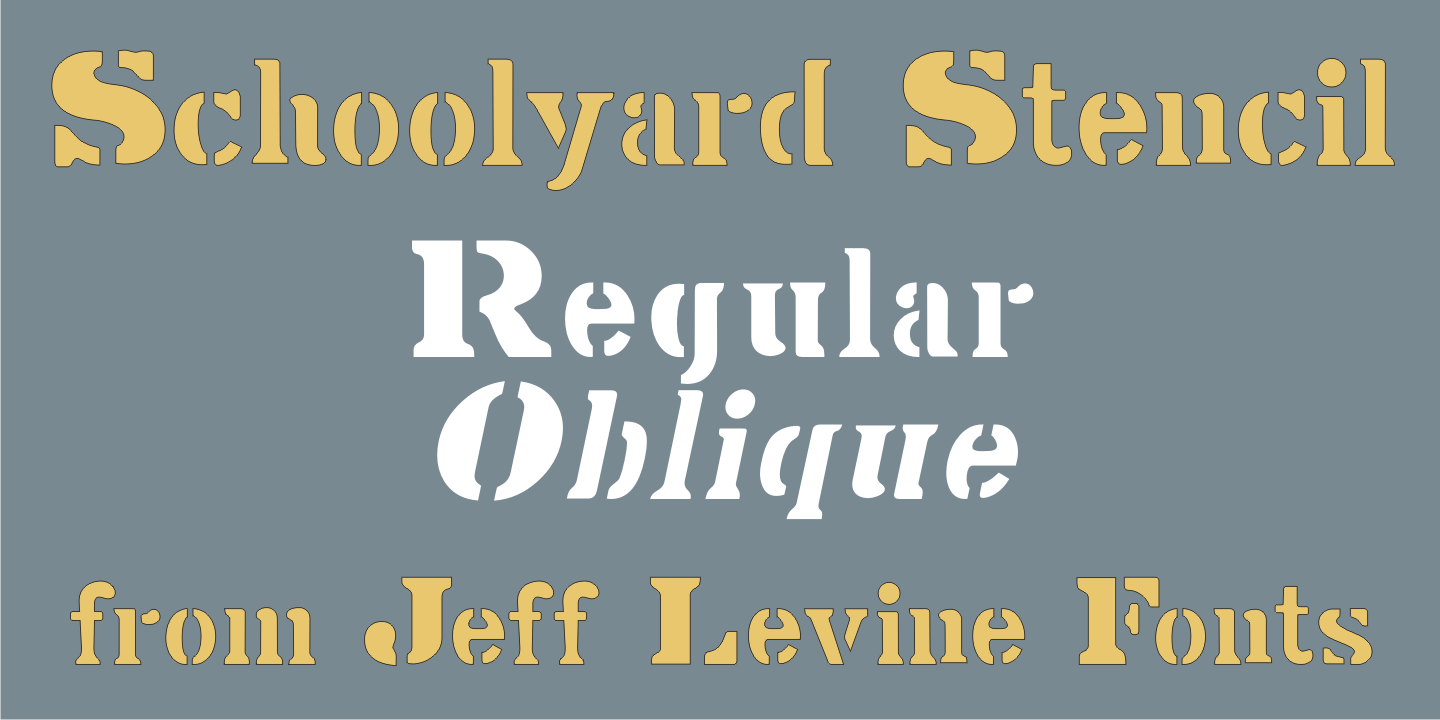
Schoolyard Stencil
A vintage lettering stencil manufactured by the E-Z Letter Stencil Company of Baltimore, Maryland was the model for Schoolyard Stencil JNL, available in both regular and oblique versions.
Re-drawn digitally and following the actual bend of the steel rule dies used to cut the stencils, this typeface has not been cleaned up from its original design.
Upon close examination, you will find straight angles and slight curves in the most unusual places. This was representative of the difficult work involved in bending steel cutting rule material and fitting it into small areas.
For many years, E-Z Letter was the main competitor to the Stenso Lettering Company; the originator of the oil board stencil lettering guide complete with automating spacing holes. Anyone over 40 will well-remember lettering their science fair posters, report covers and ring binders with these stencils.